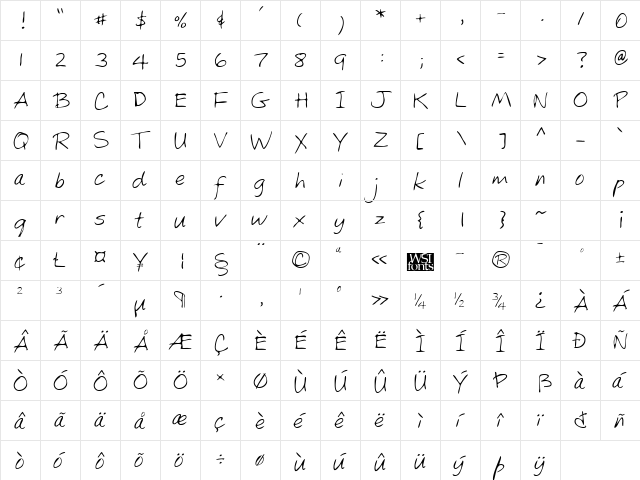
KylesHand Regular Font Preview
KylesHand Regular
KylesHand Regular Font Details
Design Context for KylesHand Typeface
KylesHand flows with the natural rhythm of handwritten lettering, making it ideal for designs that call for warmth and personal expression.